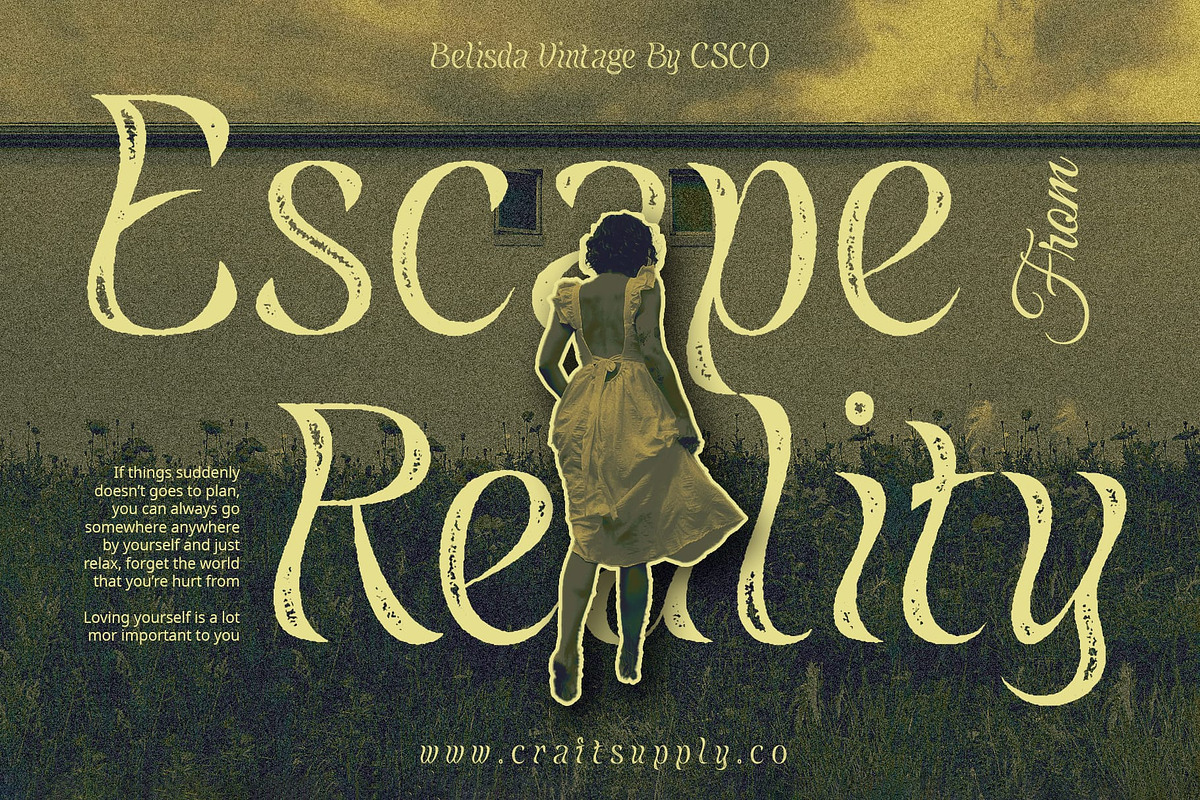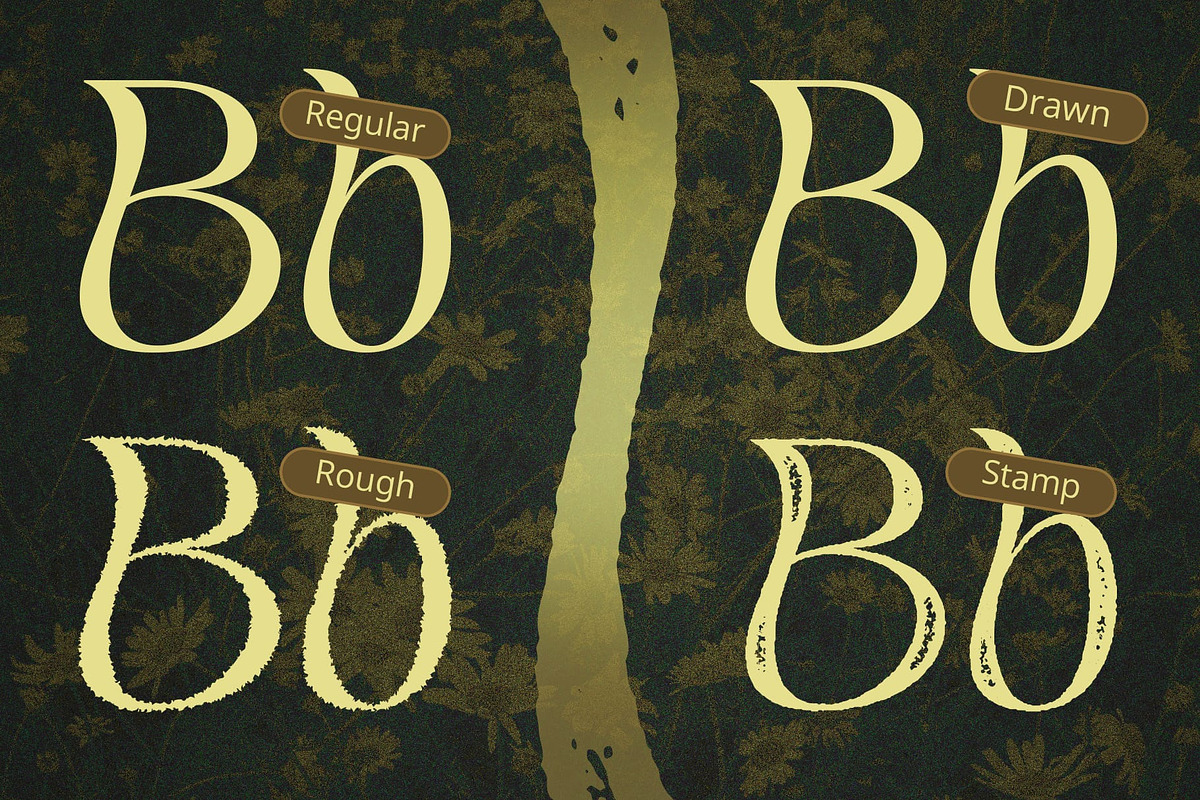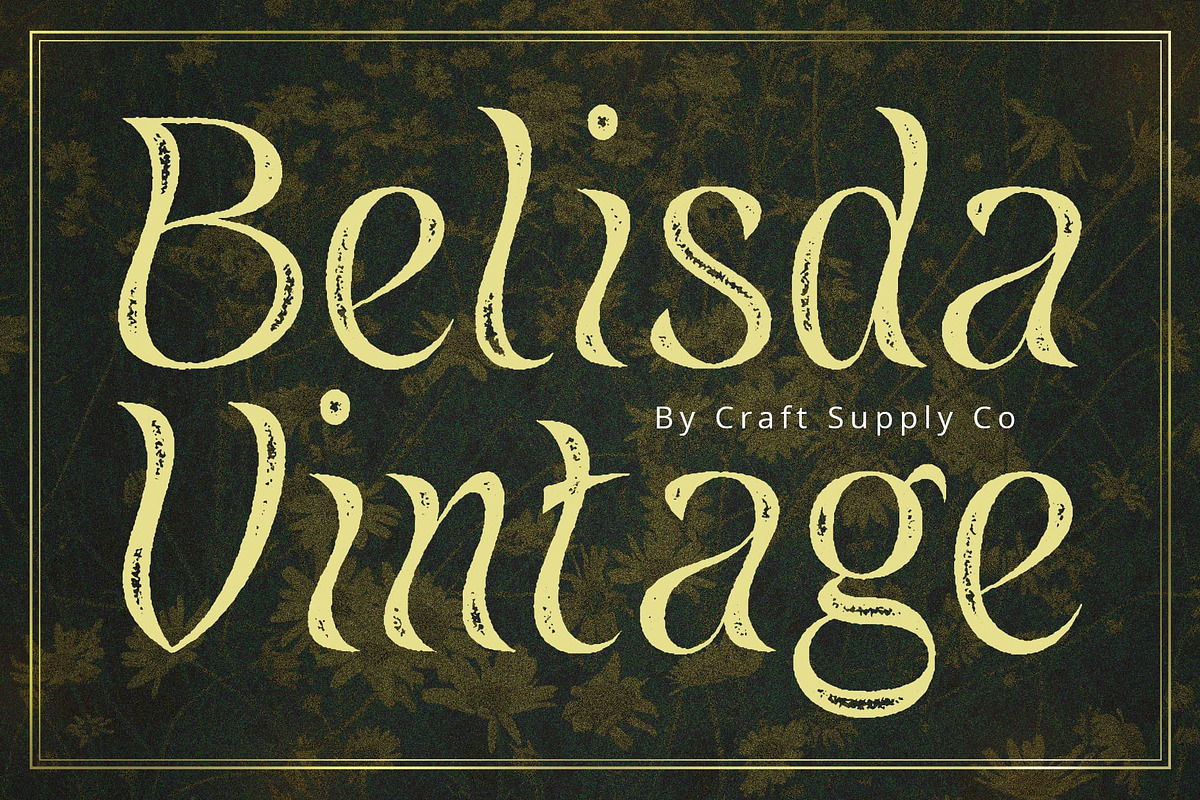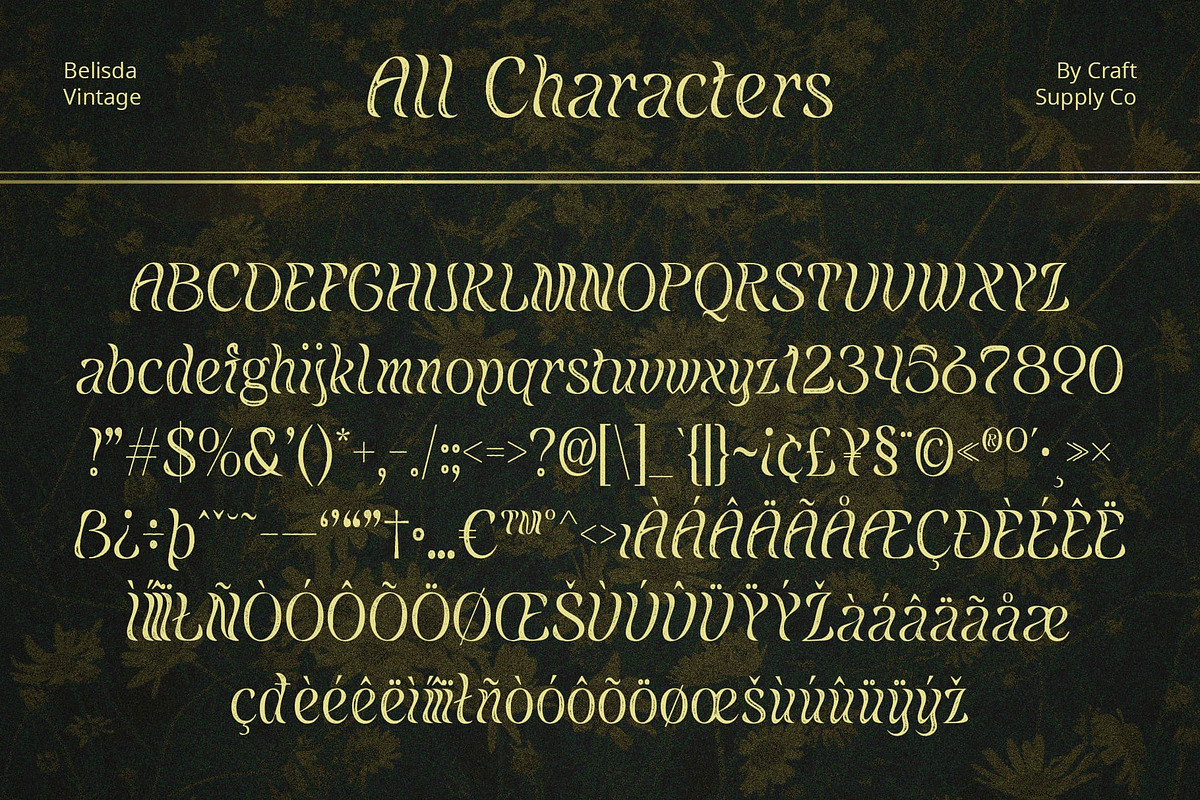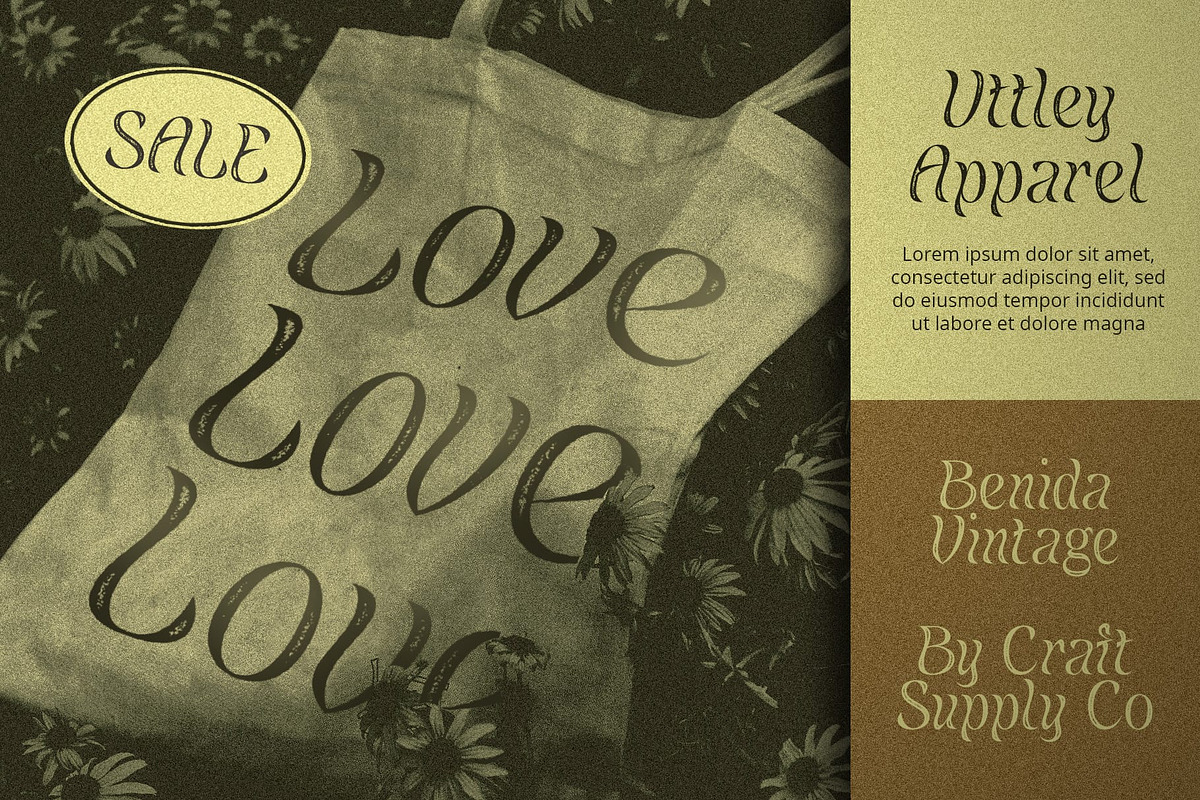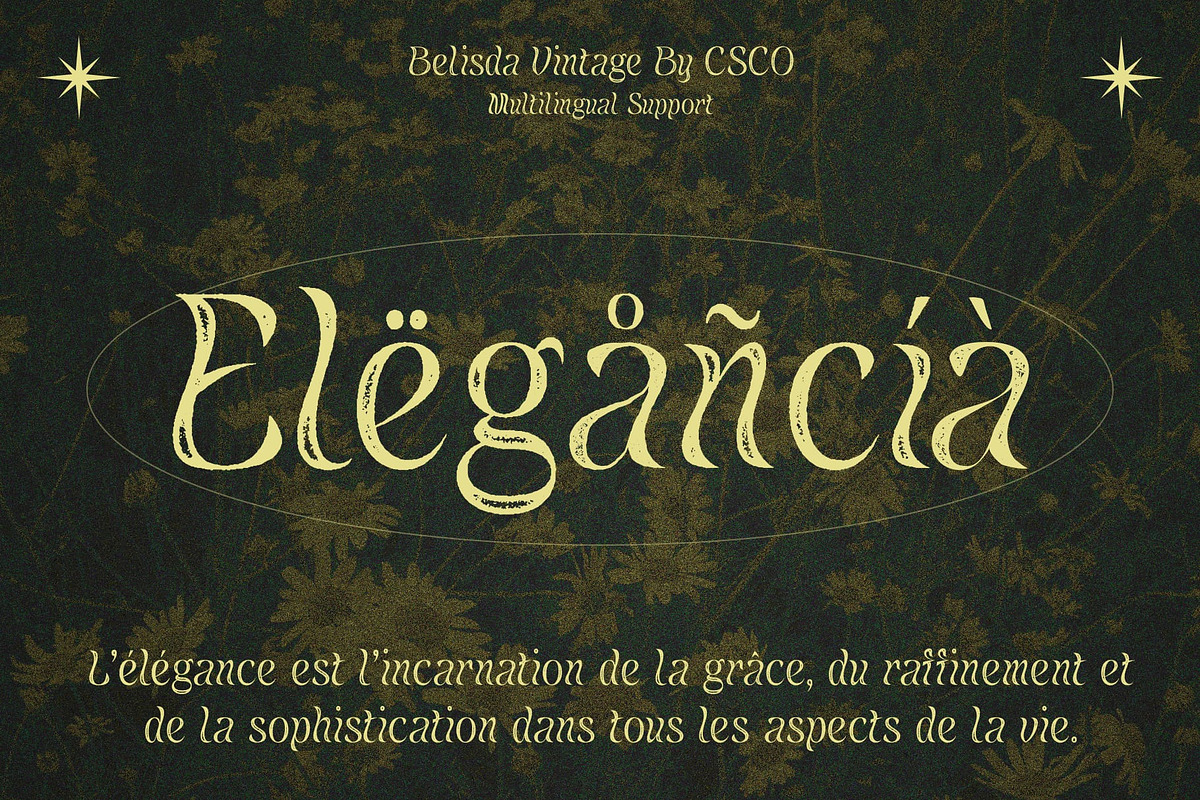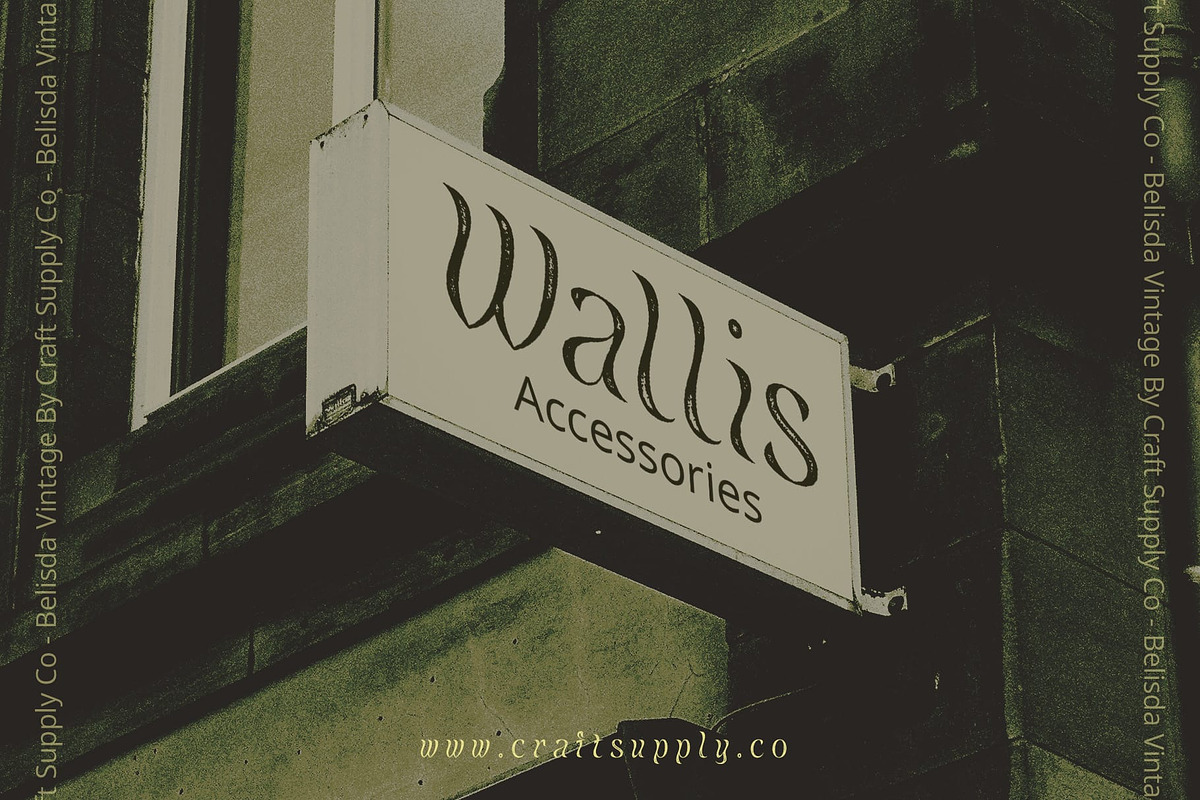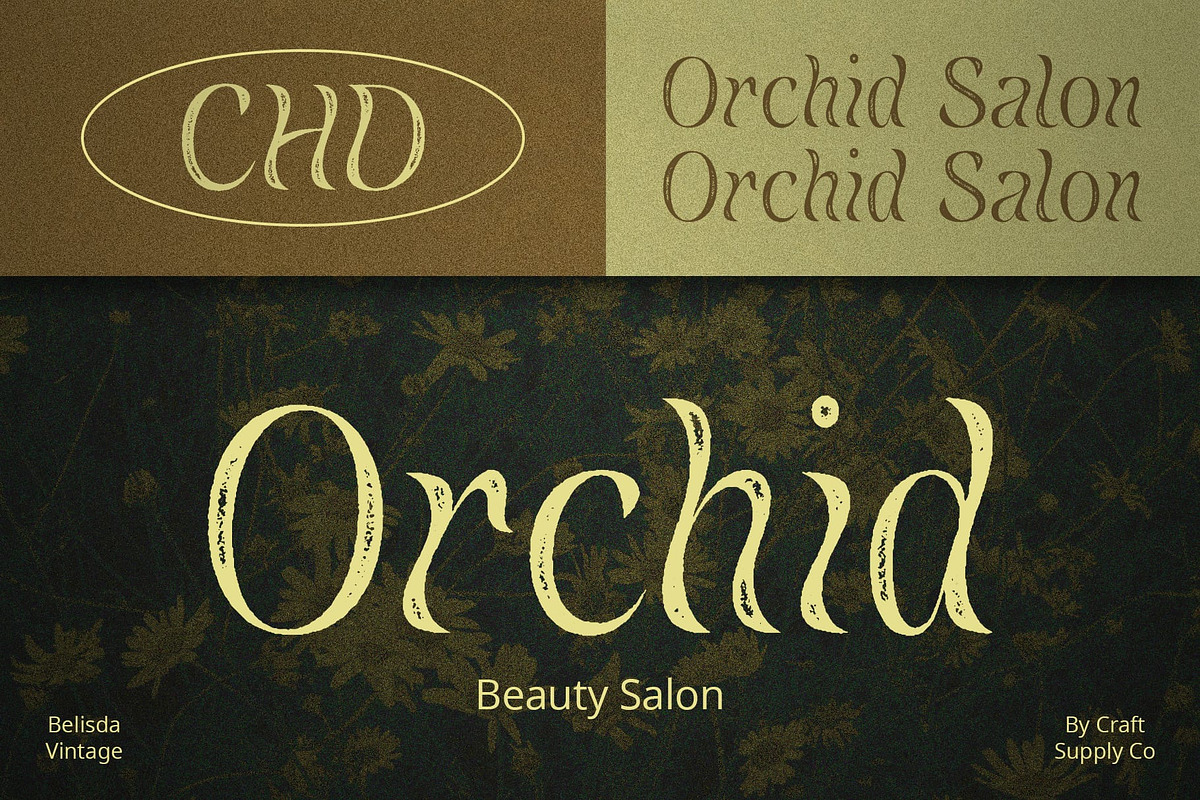
Belisda Vintage
Belisda Vintage: Embodying Art Nouveau Elegance
Flowing Leaf-Inspired Design Belisda Vintage boasts a flowing, leaf-inspired design that exudes elegance and sophistication. Its graceful curves and organic shapes draw inspiration from nature, adding a touch of beauty to any project.
Art Nouveau Influence Crafted in the style of Art Nouveau, This font pays homage to the iconic artistic movement known for its intricate details and ornate designs. The font captures the essence of Art Nouveau with its elaborate flourishes and decorative elements.
Vintage Charm with Rough Stamp Drawn Effect The font is enhanced with a rough stamp drawn effect, lending it a vintage appearance reminiscent of old-world craftsmanship. This effect adds character and depth to each letter, evoking a sense of nostalgia and authenticity.
Versatile Application Despite its vintage-inspired design, This font is versatile and adaptable to various design projects. From branding and packaging to posters and invitations, it adds a touch of timeless elegance and sophistication.
Timeless Tribute to Art Nouveau This font is a stunning display font that beautifully captures the essence of Art Nouveau. With its flowing leaf-inspired design, Art Nouveau influence, and vintage charm enhanced by a rough stamp drawn effect, it brings a touch of elegance and sophistication to any design project. Explore the beauty of Belisda Vintage and add a timeless flair to your creations.
- Belisda Regular
- Belisda Drawn
- Belisda Rough
- Belisda Stamp